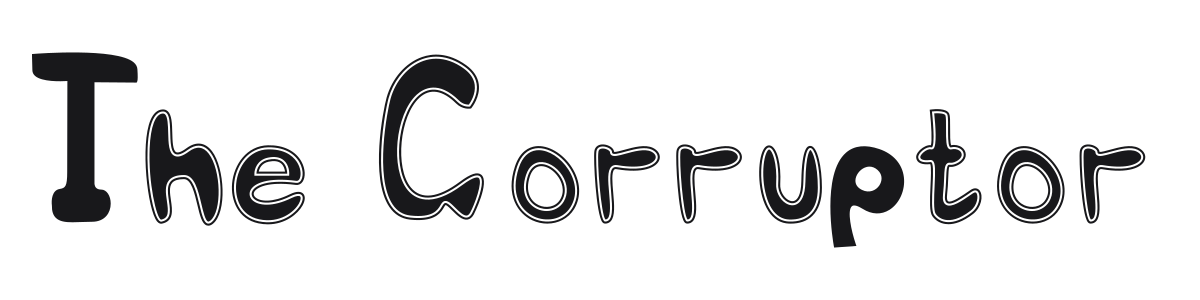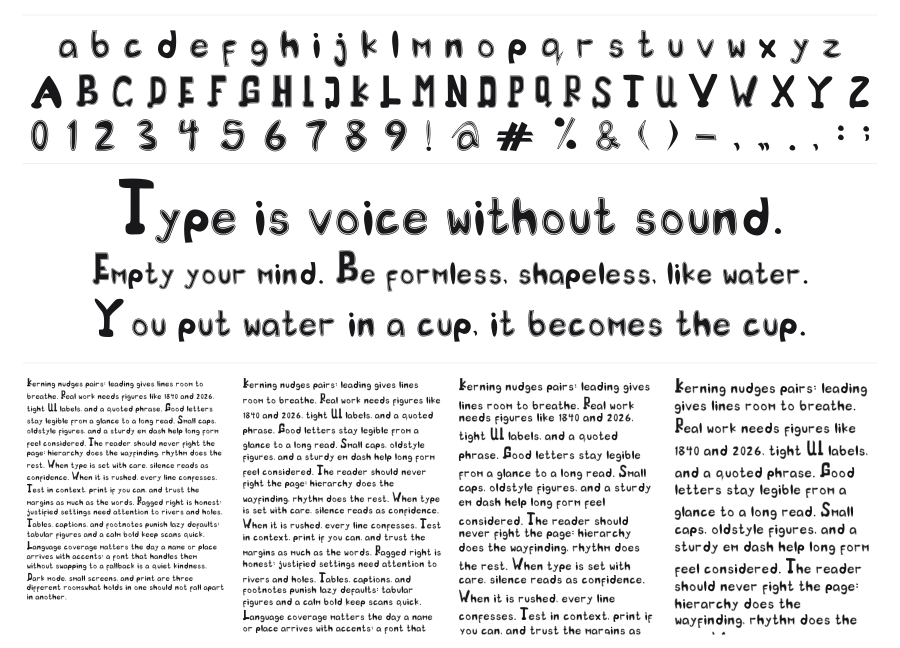
The Corruptor
The Corruptor is a bold, chunky rounded display font with a built-in inline outline effect that gives every character a cartoon-like double border. The slightly wobbly, organic shapes feel hand-drawn without losing legibility at large sizes. It brings a comic book or children's illustration energy to headlines, packaging, and playful branding.